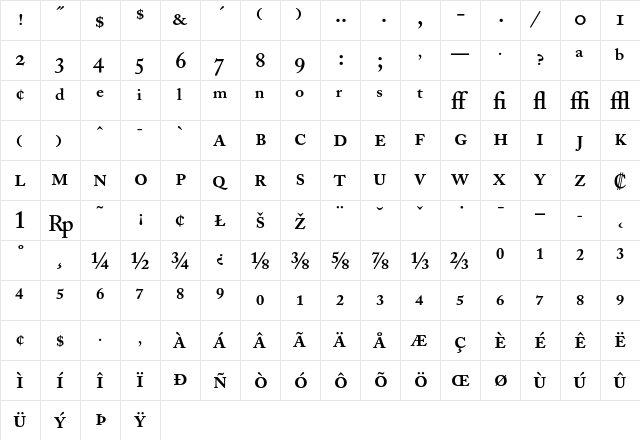
Adobe Caslon Semibold Expert
Design Context for Adobe Caslon Typeface
Adobe Caslon is a composed and adaptable typeface that performs quietly and consistently across a wide range of design contexts. Its bold stroke weight gives it real presence on the page.
Pro Tip: Pair Adobe Caslon with a font of contrasting weight or personality to build a more expressive typographic hierarchy.